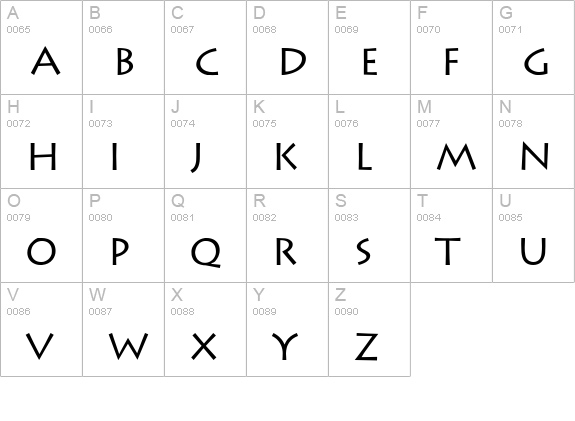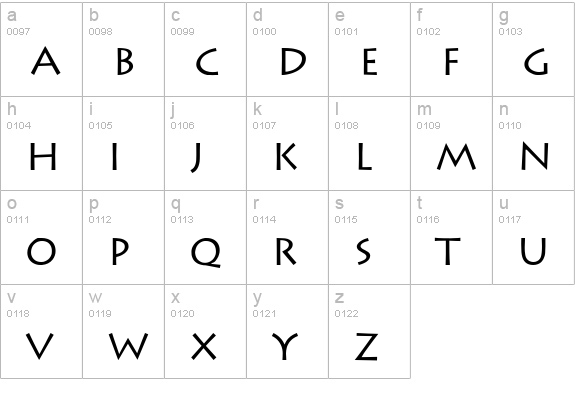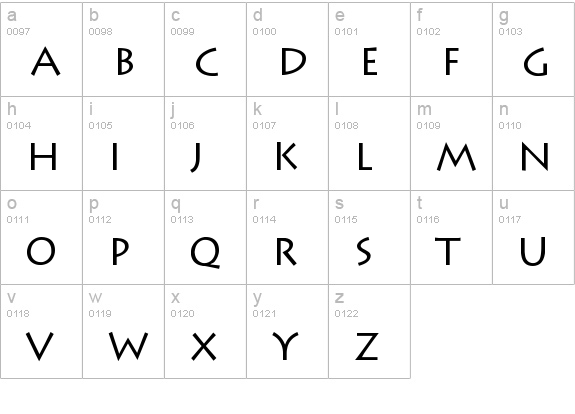
Liste Normal is the standard, neutral variant in the Liste typeface family \xE2\x80\x94 well suited to general body text, paragraphs, and standard typographic work.
Liste Normal font is a modern and versatile typeface that offers a clean and elegant design suitable for a wide range of projects. With its balanced proportions and legible letterforms, Liste Normal exudes a sense of sophistication and professionalism. This font is perfect for creating sleek and contemporary designs, whether for branding, advertising, editorial use, or any other creative endeavor. The best part is that Liste Normal font is available for free download at FontsMarket.com. You can easily access this high-quality font to enhance your projects without any cost. Don't miss out on the opportunity to add Liste Normal to your font collection and elevate your designs with its timeless appeal. Download now and experience the seamless blend of style and functionality that Liste Normal font has to offer.